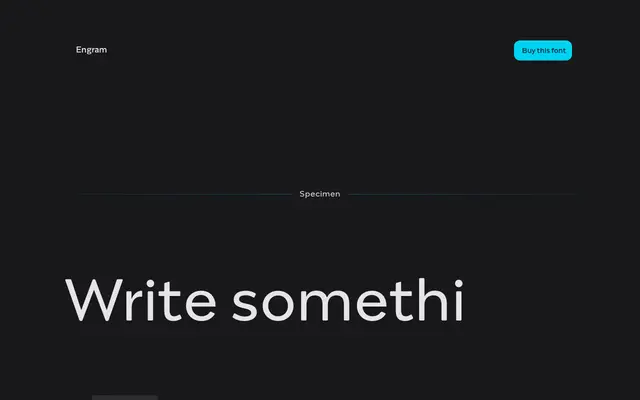
Engram
Capitalics · Mateusz Machalski · 2015
A geometric sans from Polish designer Mateusz Machalski, spanning 22 styles from Hairline to Heavy with rounded corners and a scalable x-height.
Developed between 2015 and 2020, Engram is a classical geometric sans that leans toward friendliness through rounded corners and attentive detail. The family covers eleven weights, each with a matching italic, making it versatile across branding and editorial contexts. The scalable x-height keeps it readable across a range of sizes and applications.
Described explicitly as a classical sans geometric family, with rounded corners and a scalable x-height consistent with geometric humanist conventions.